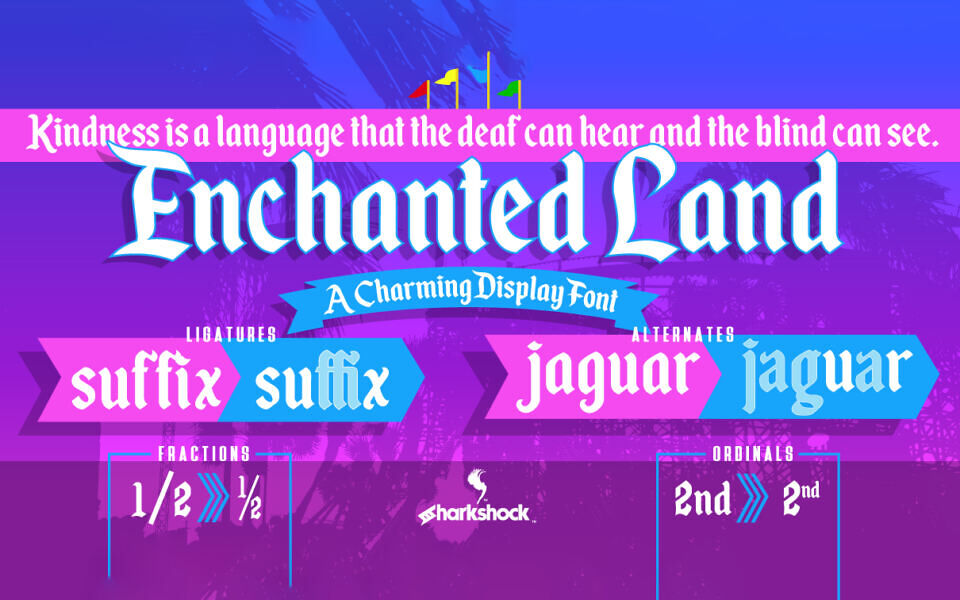
Welcome to the Enchanted Land where fun has no age limit! This display font captures the magic of classic story book telling with princesses and castles. It features a clean glyph set with many European accents and diacritics. The whimsical style of the caps flow with consistency and shows up in the numbers and many other marks as well.
All caps are NOT recommended. Use Enchanted Land for a children’s project, book title, or anywhere you’d like a little magic. OTF features like kerning, ordinals, fractions, ligatures, alternates, proportional numbers, and punctuation are all included in the full version. The demo contains basic latin, numbers, and offers some kerning.